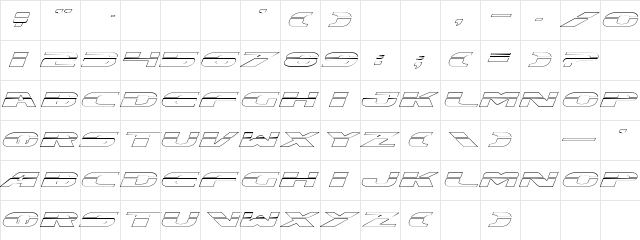
Excelerate Outline Expanded Font Preview
Excelerate Outline Expanded
Design Context for Excelerate Outline Typeface
Excelerate Outline is built around its visual character rather than neutral utility — its distinctive forms are designed to make an impression at display sizes.
Font Pairing: Pair with a clean neutral sans-serif for body copy to let Excelerate Outline's character lead without overwhelming the composition.
Pro Tip: Use Excelerate Outline exclusively at display sizes — it was designed to be seen, not read at length. Let a neutral companion handle body copy.